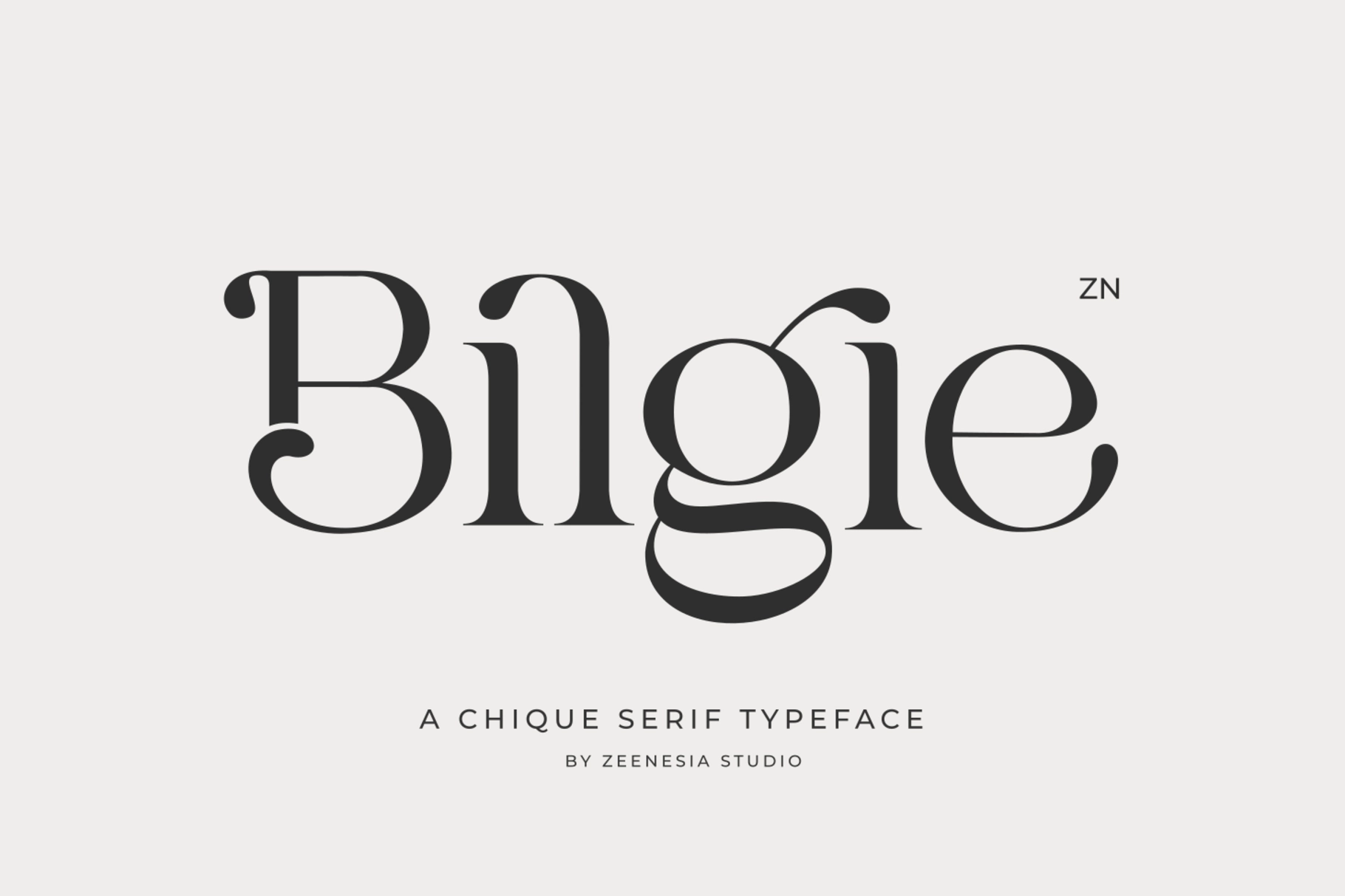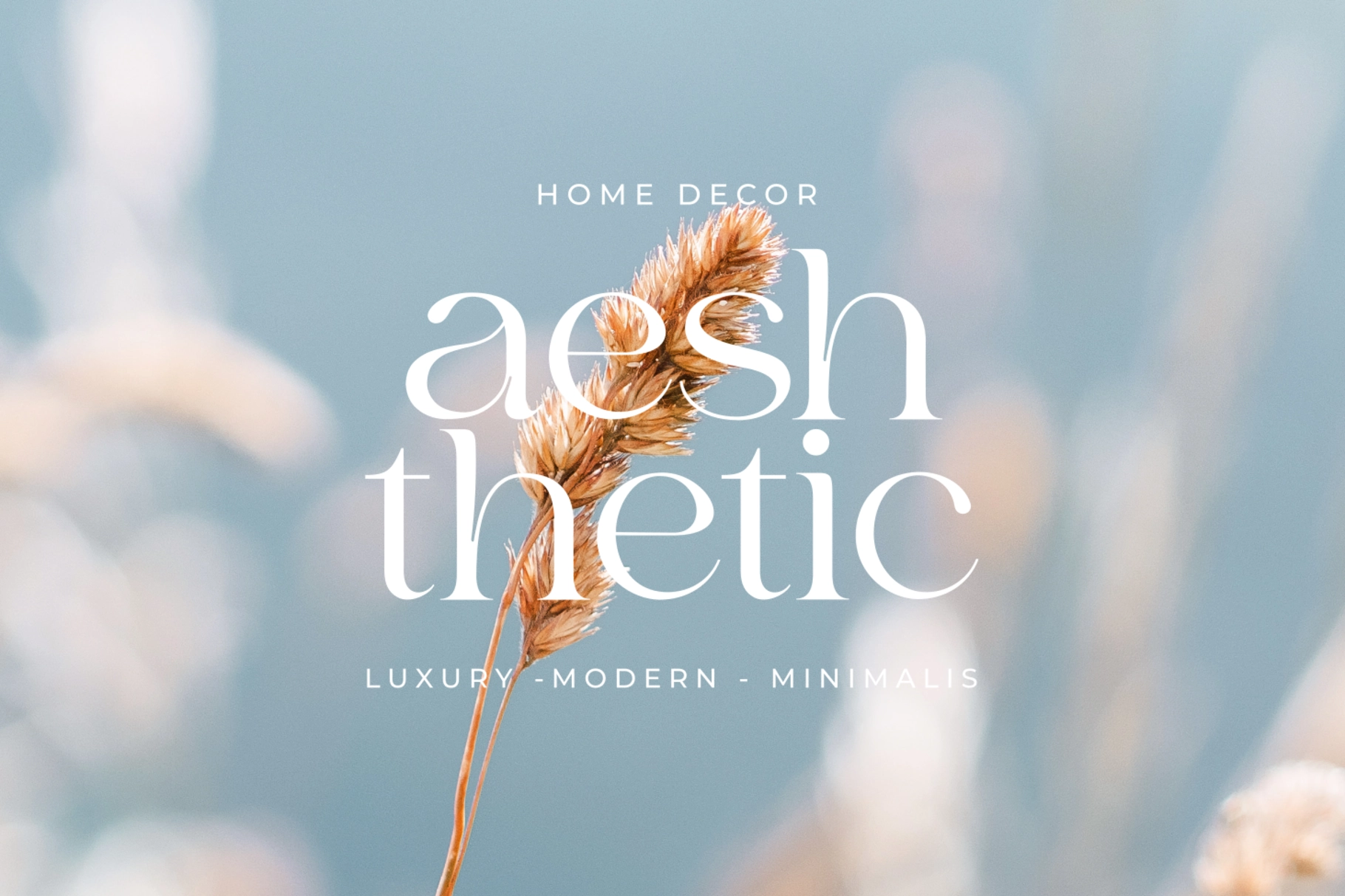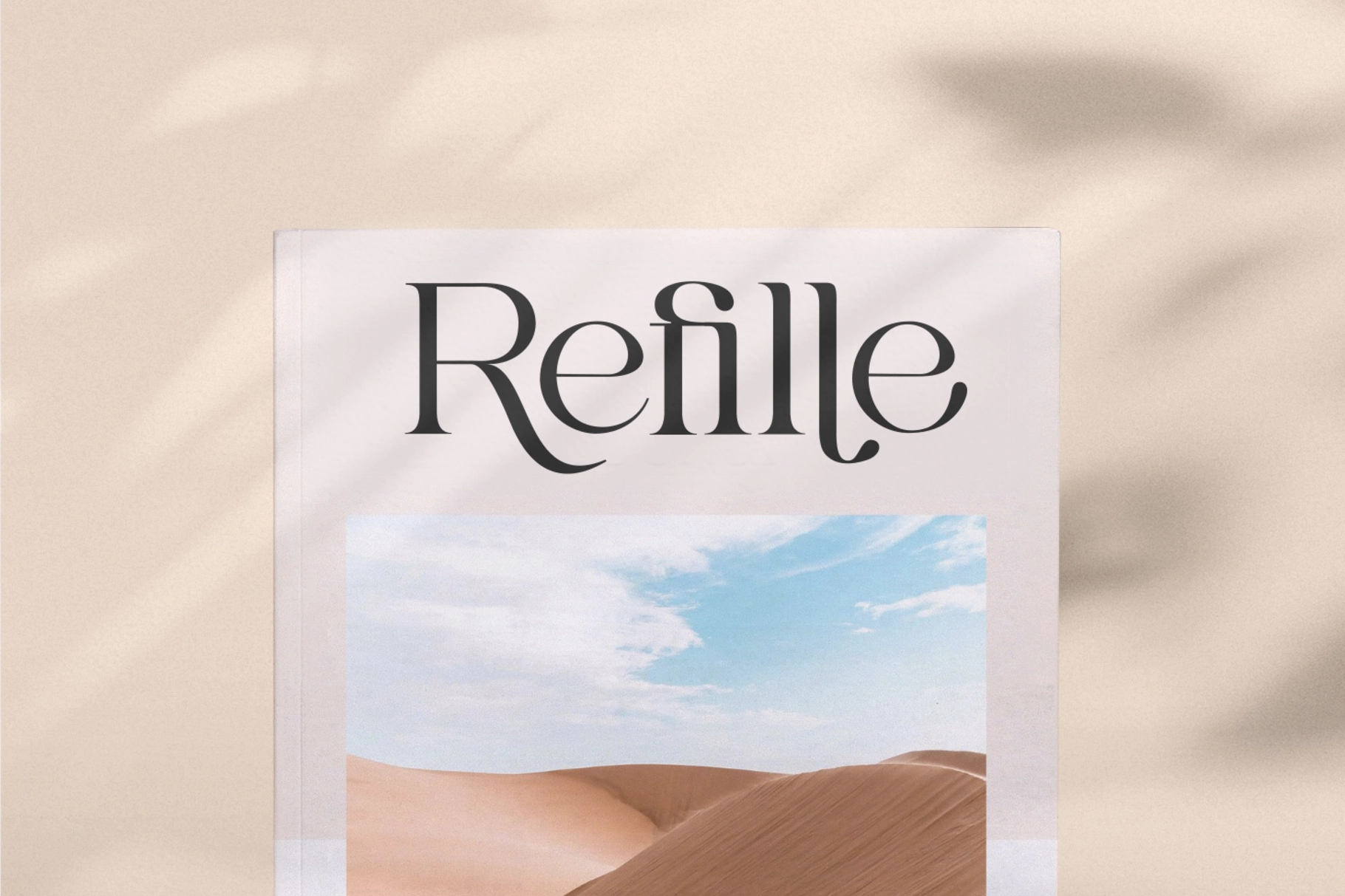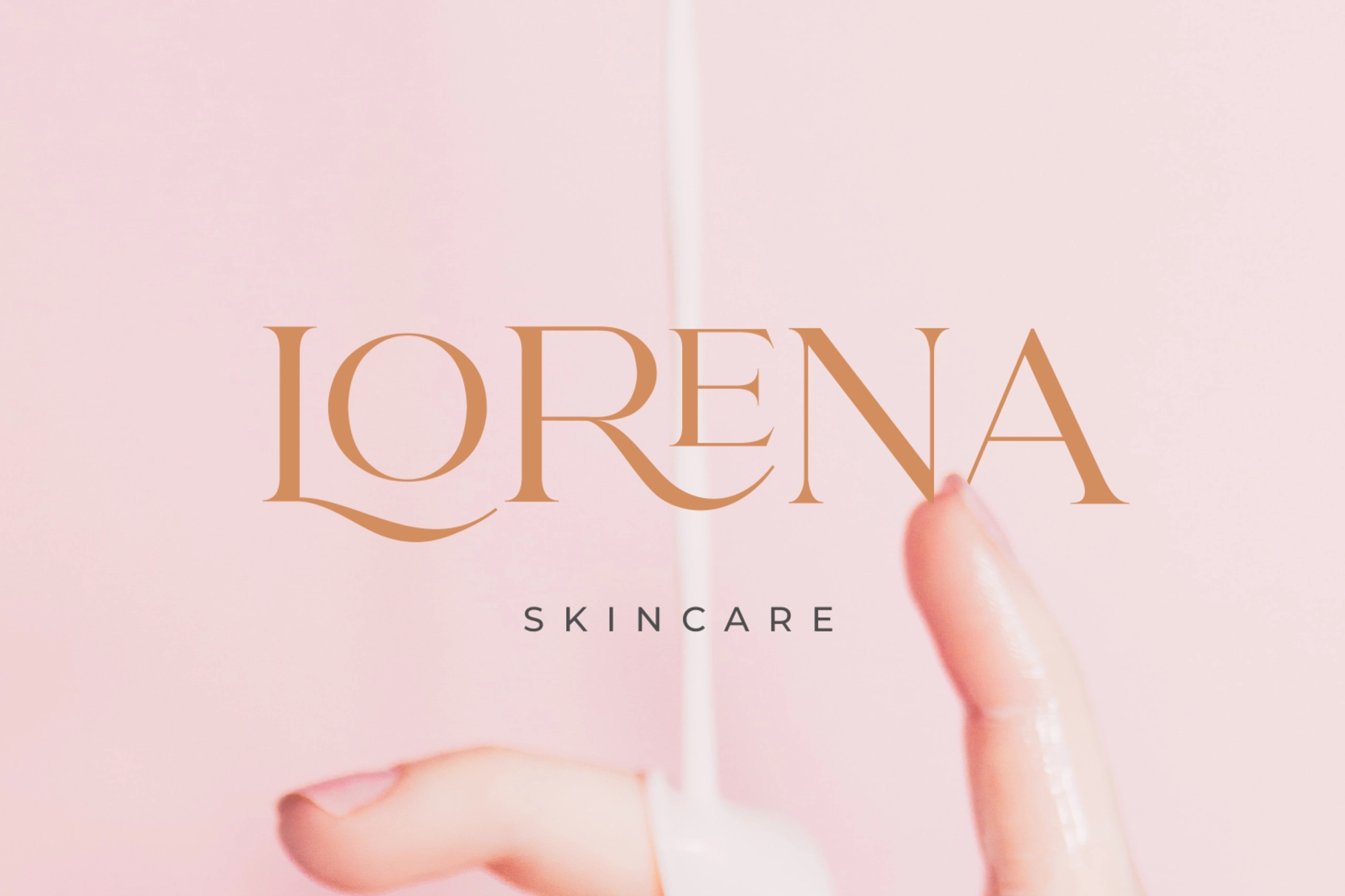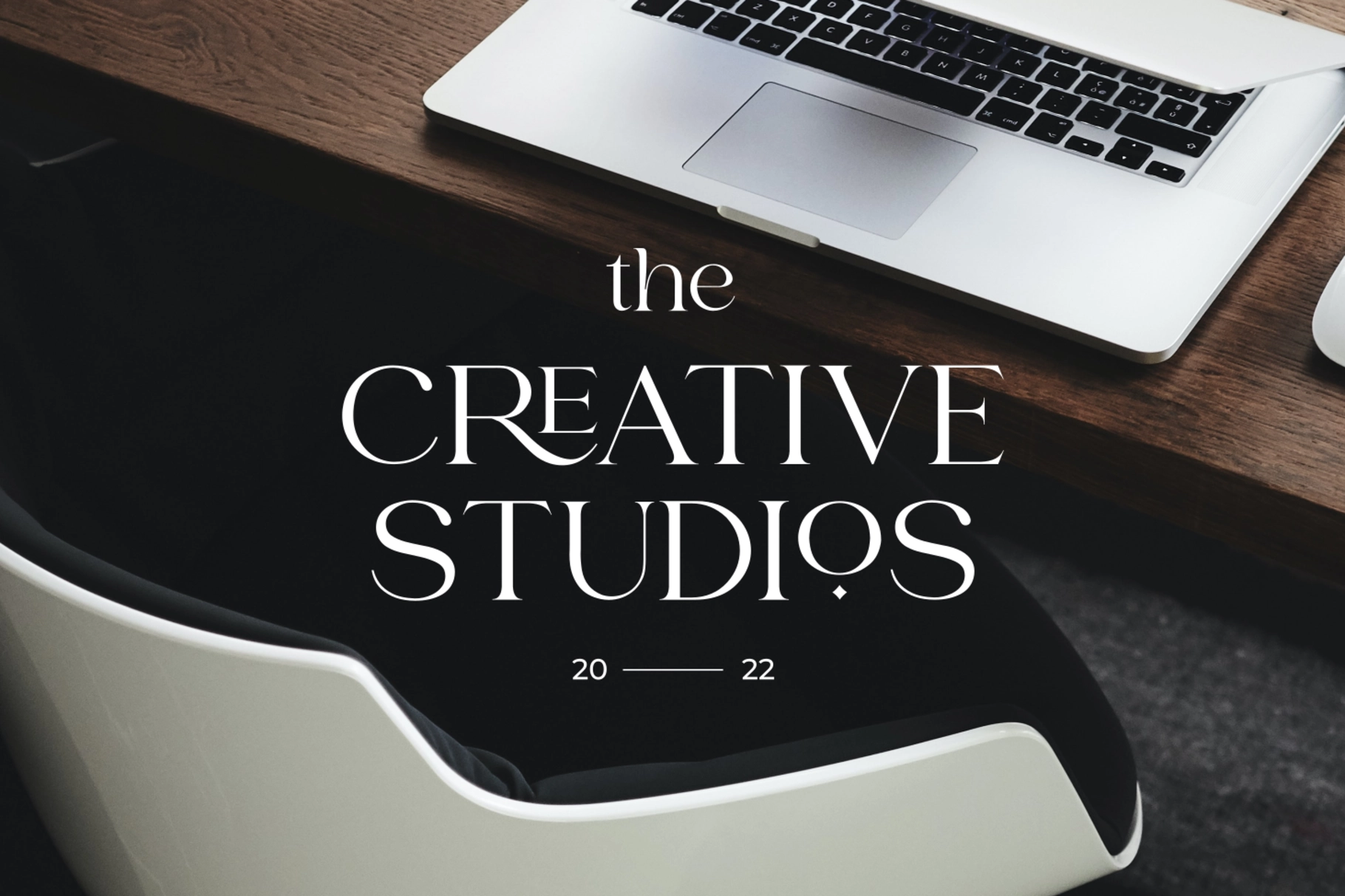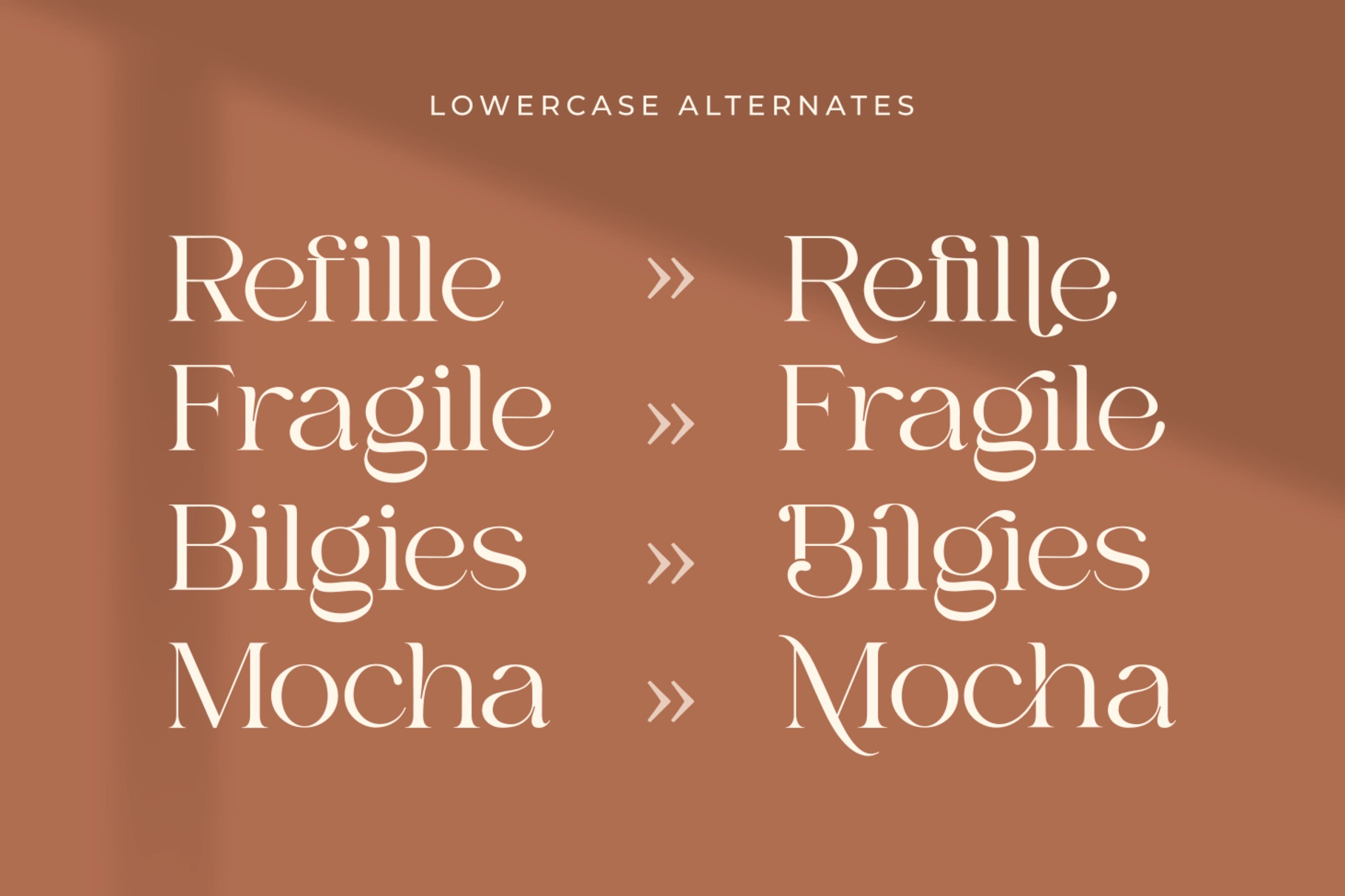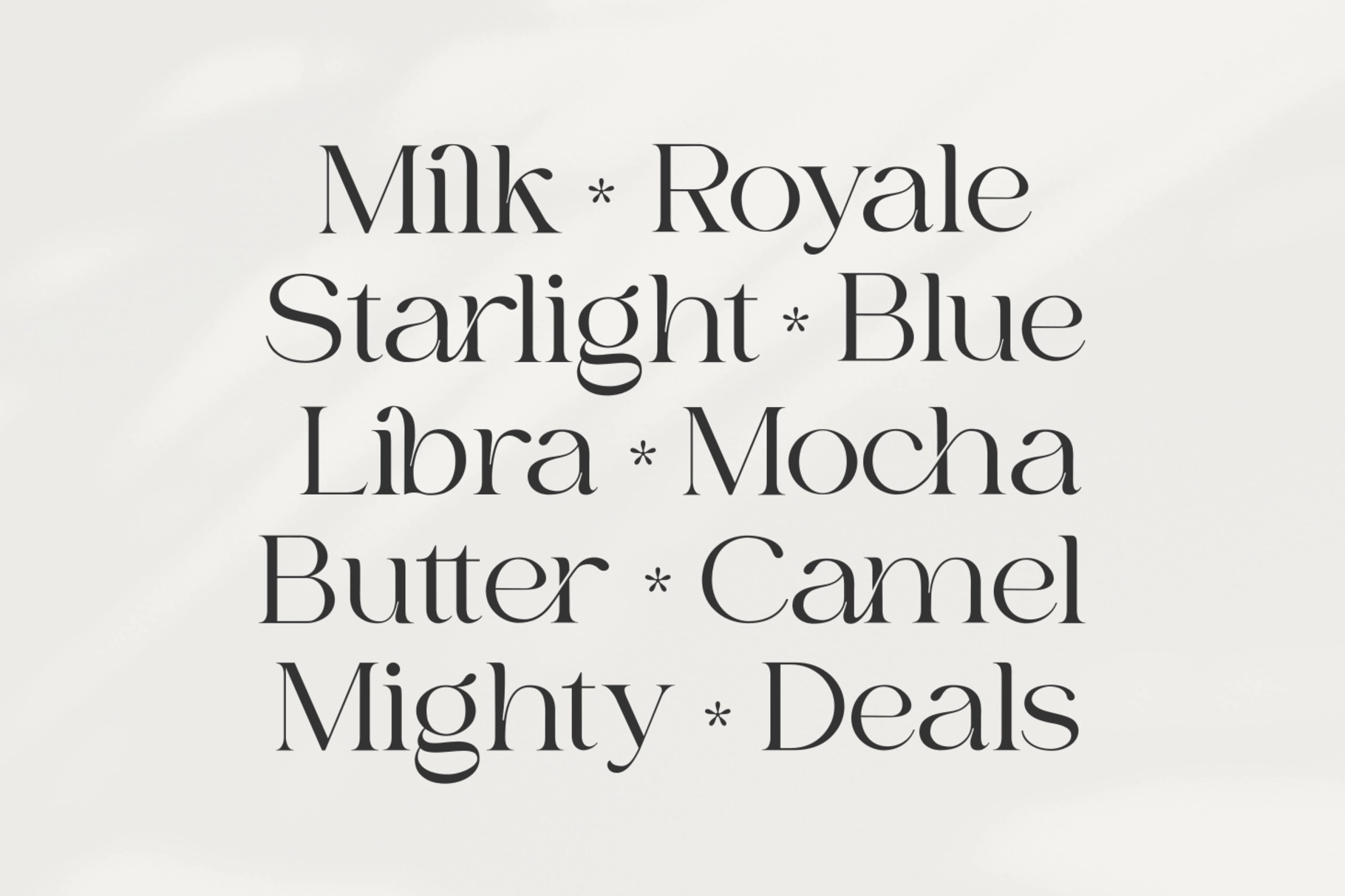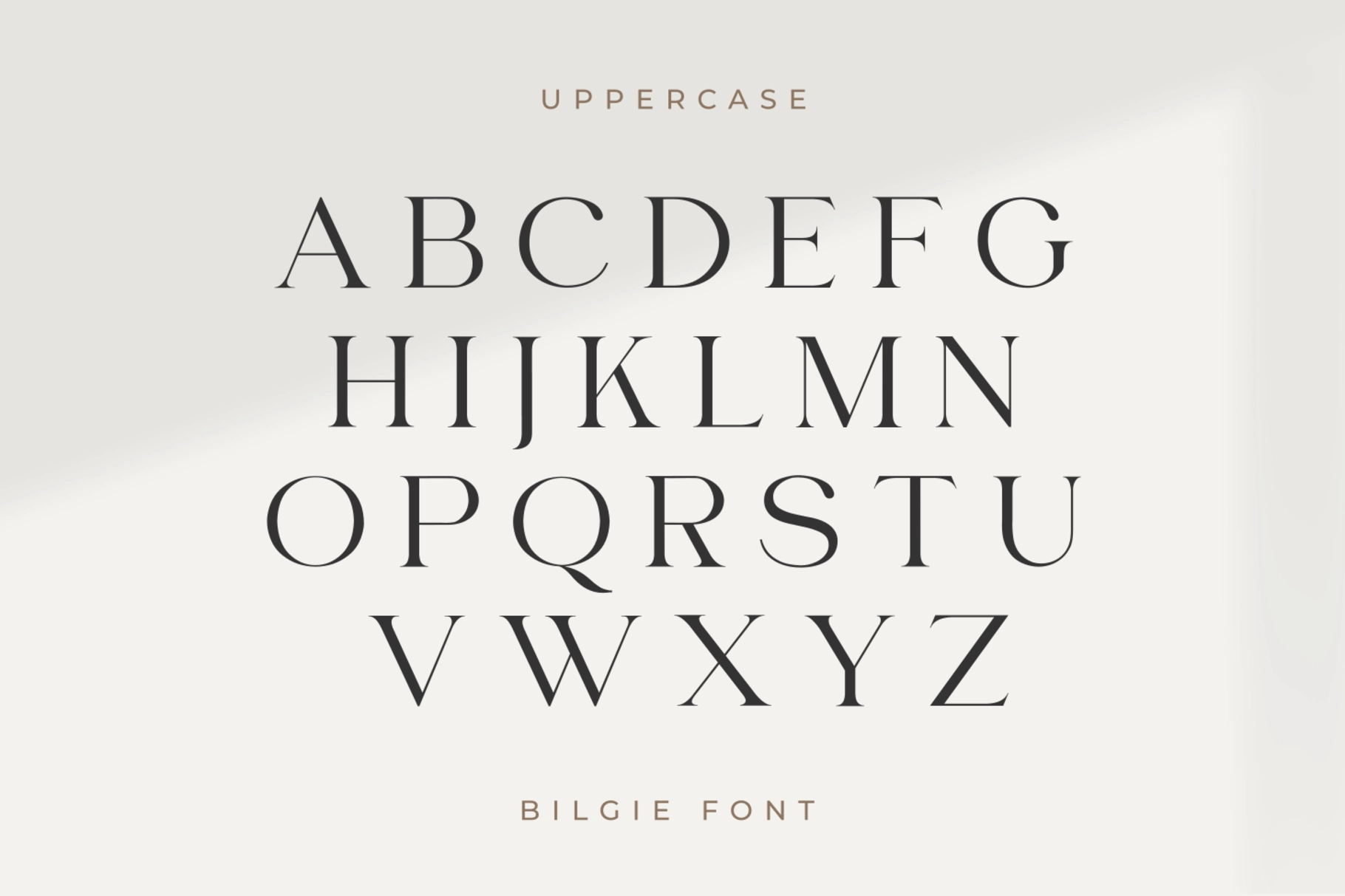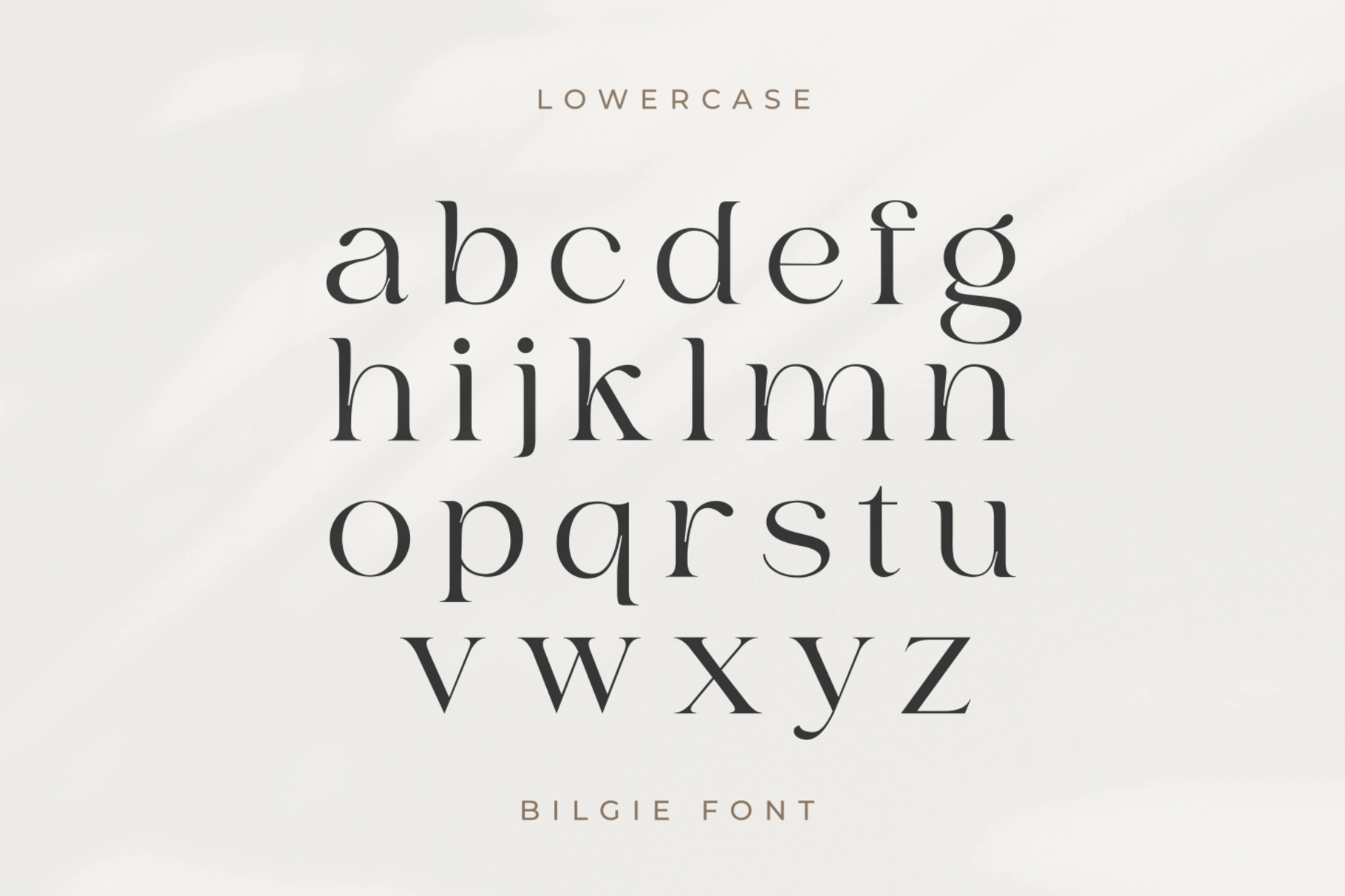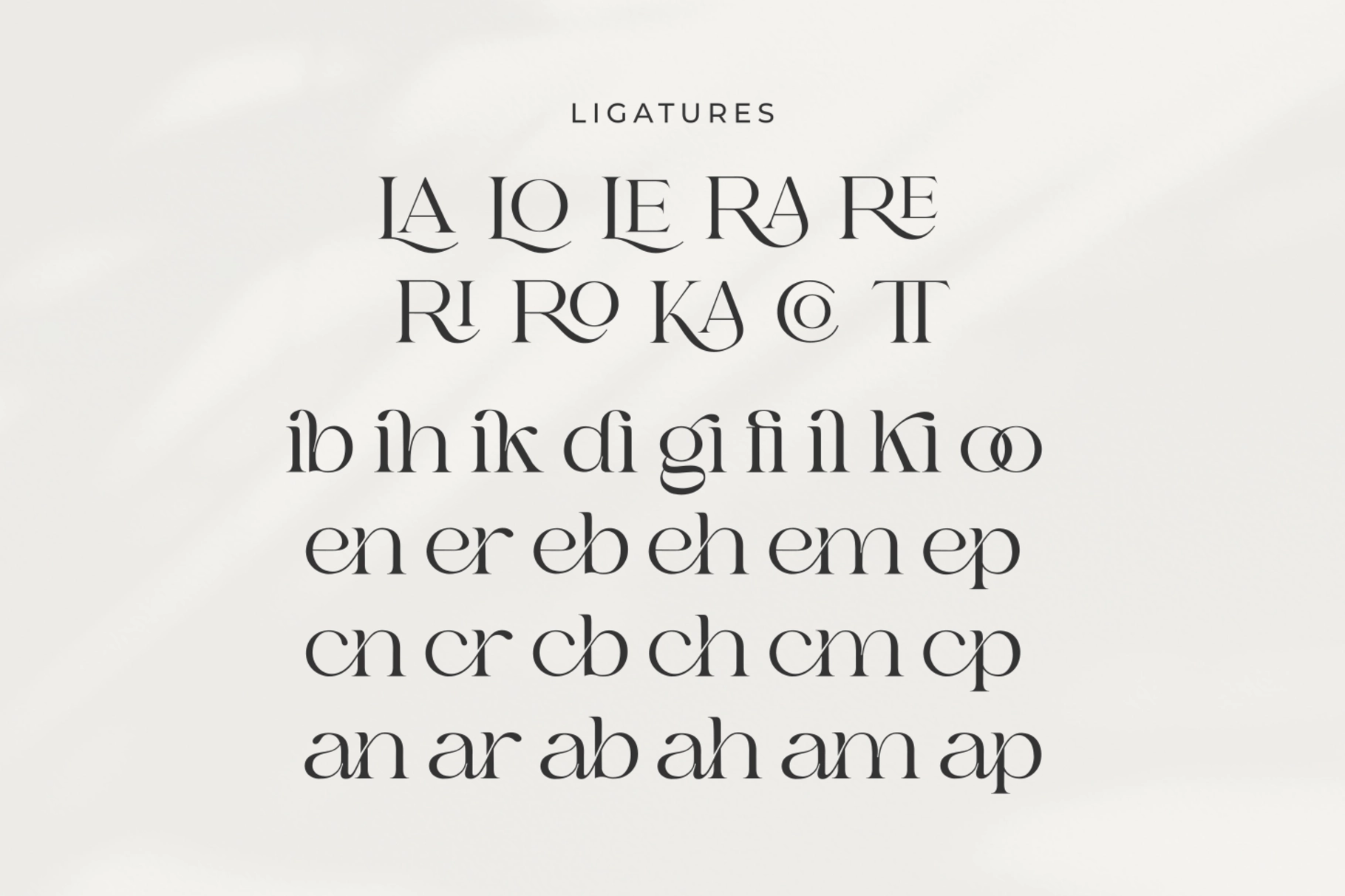
Bilgie - Chic Elegant Font
Bilgie is an elegant serif font built on high stroke contrast, sharp bracketed serifs, and a tall, narrow construction that reads as runway-ready at display sizes. Its proportions sit closer to high-fashion magazine lettering than to classical book type — precise, a little theatrical, and confident at large scale.
Bilgie works best in short headline settings where the letterforms have room to make an impression. Use it for fashion editorials, logo design, clothing branding, product packaging, beauty campaigns, magazine headers, boutique signage, and web typography.